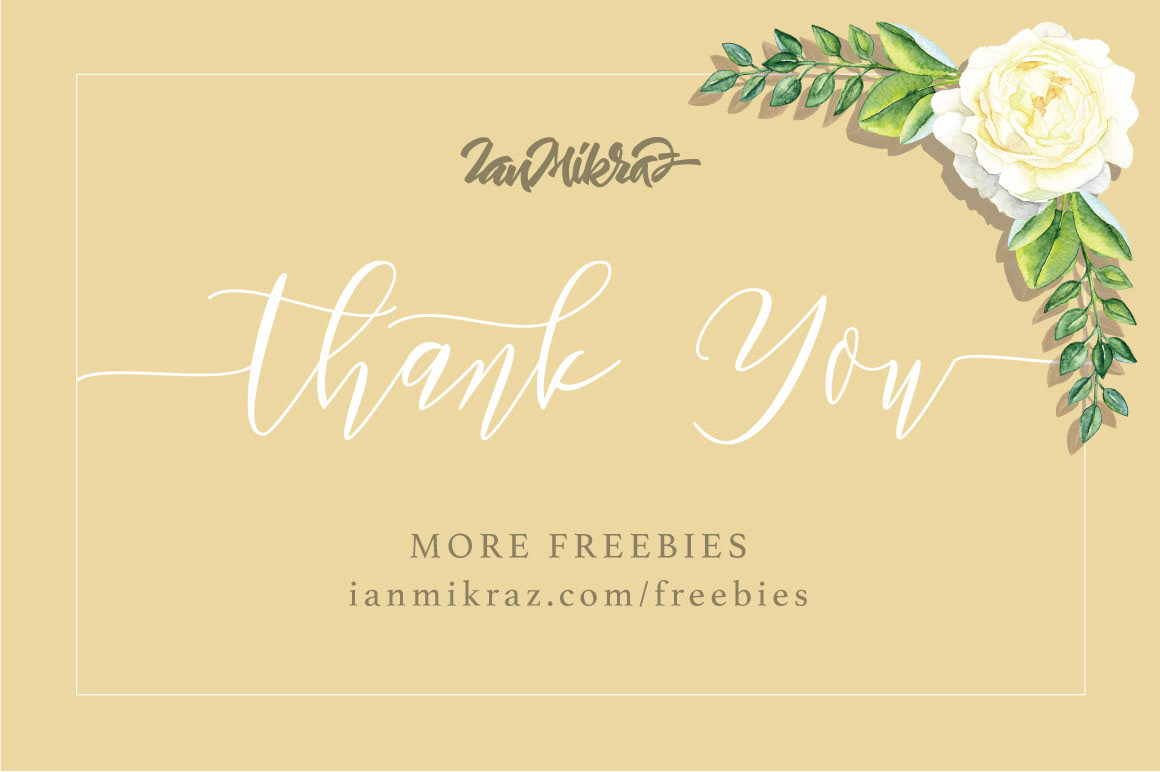
Introducing Frutilla Script Free Typeface
Frutilla Script Free Typeface is a new modern calligraphy Typeface Fonts collection from Ianmikraz studio, combines from copperplate to contemporary typeface, classic, beauty and elegant touch.
Frutilla Script Free Typeface features 277 glyphs and 86 alternate character contain with opentype features. Swash Alternates, Stylistic Alternates, Standart Ligature and more. You can access all those alternate characters by using OpenType savvy programs such as Adobe Illustrator, Adobe InDesign and CorelDraw X6-X7.
Frutilla Script Free Typeface is suitable for Apparel Brand, any greeting cards, Painting design style, or any design that needs natural and personal touch. Mix and match the alternate characters to add an attractive message to your design.
Features of Frutilla Script Free Typeface is;
- Standart ligatures
- Stylistic sets